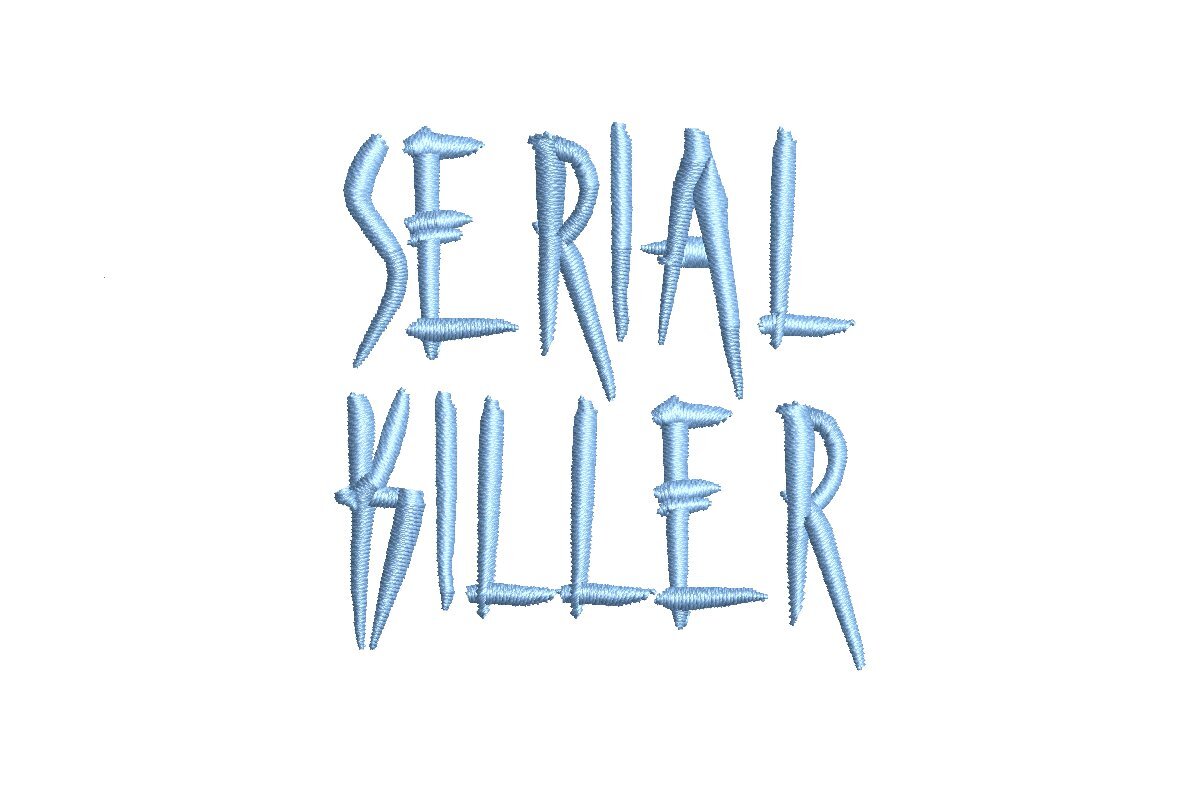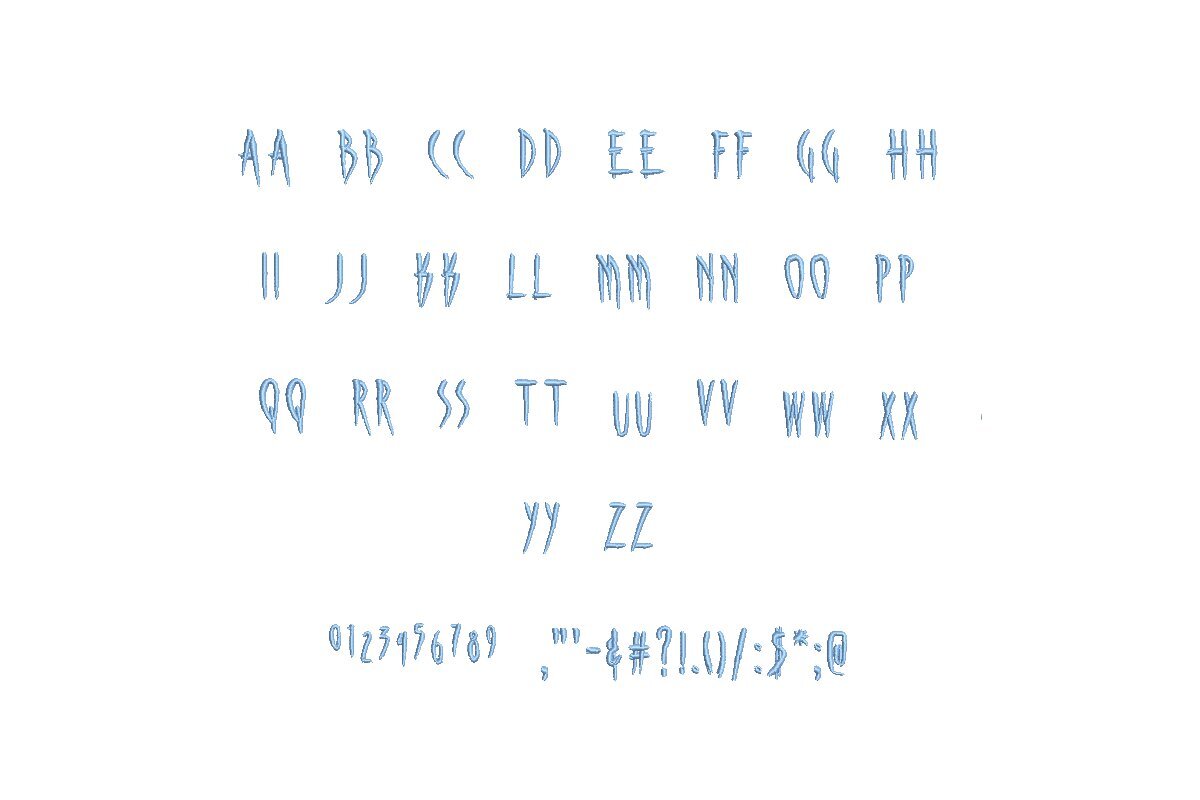
Introducing the Serial Killer ESA Font - Unleash Creative Chaos!
Elevate your embroidery projects with the Serial Killer ESA Font, meticulously designed for seamless compatibility with Wilcom Studio e4.5.6 and Hatch 3 versions and up. Whether you're an avant-garde artist or a daring designer, this font empowers you to break boundaries and infuse creative chaos into your designs effortlessly.
With a diverse range of customizable characters and impeccable stitch quality, your embroidery projects will command attention like never before. Say goodbye to conventionality and embrace limitless creative possibilities with the Serial Killer ESA Font. It's time to revolutionize your embroidery work. Embrace chaos and make your mark today!